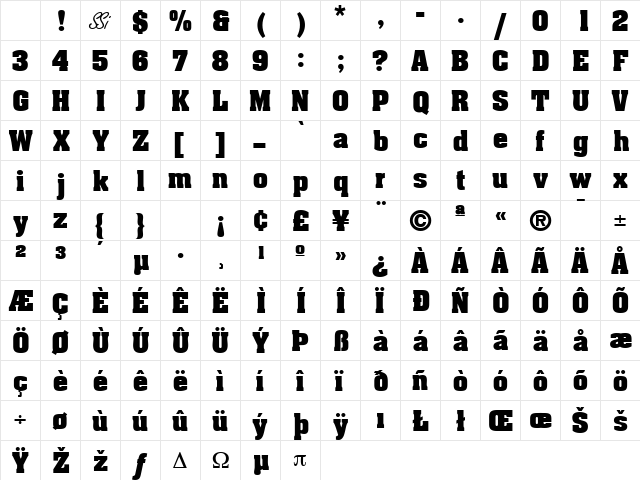
Complete BlocSSK Bold glyph index. Displaying only characters natively supported by BlocSSK Bold font.
BlocSSK is a composed and adaptable typeface that performs quietly and consistently across a wide range of design contexts. Its bold stroke weight gives it real presence on the page.